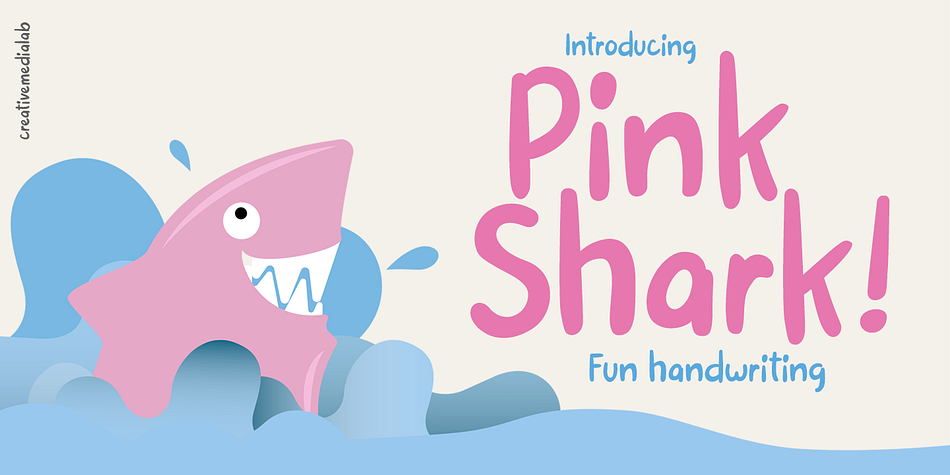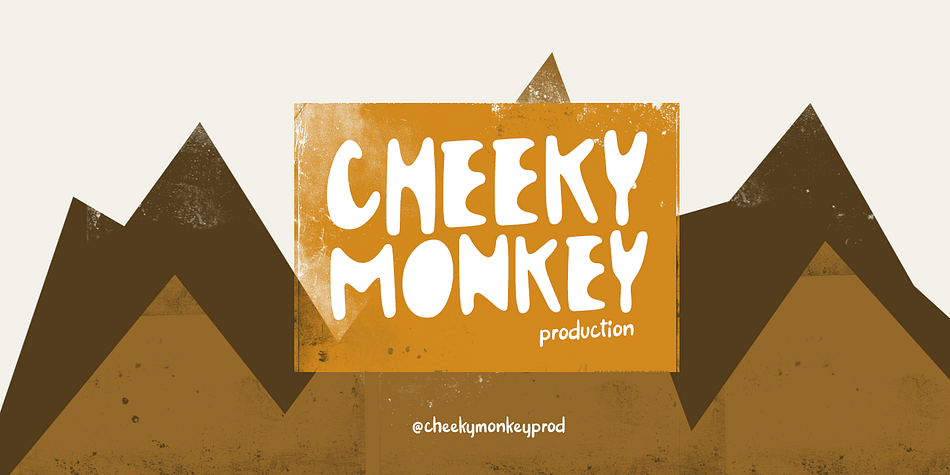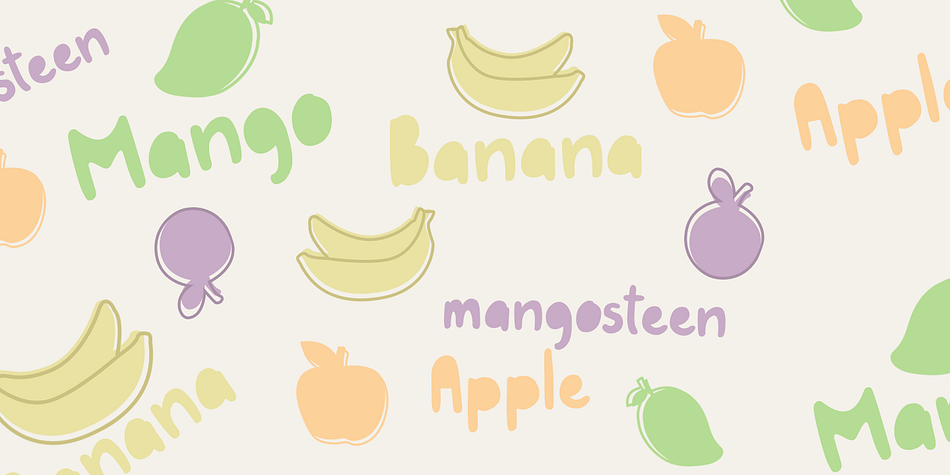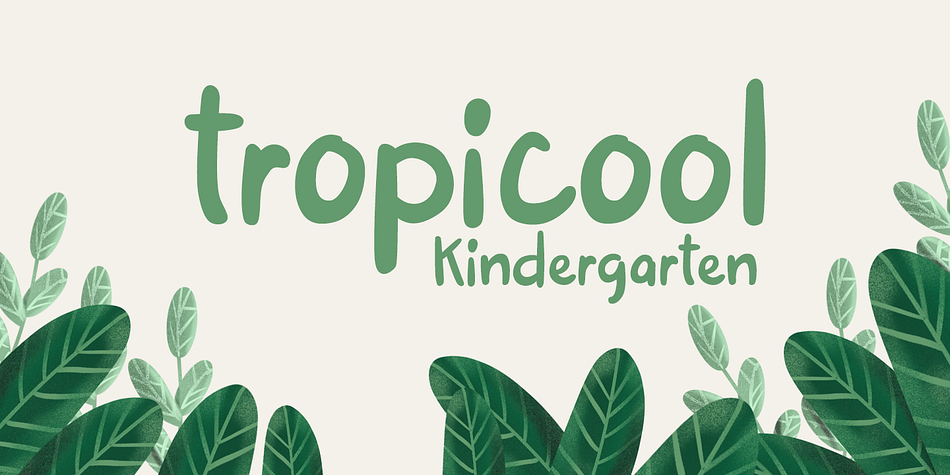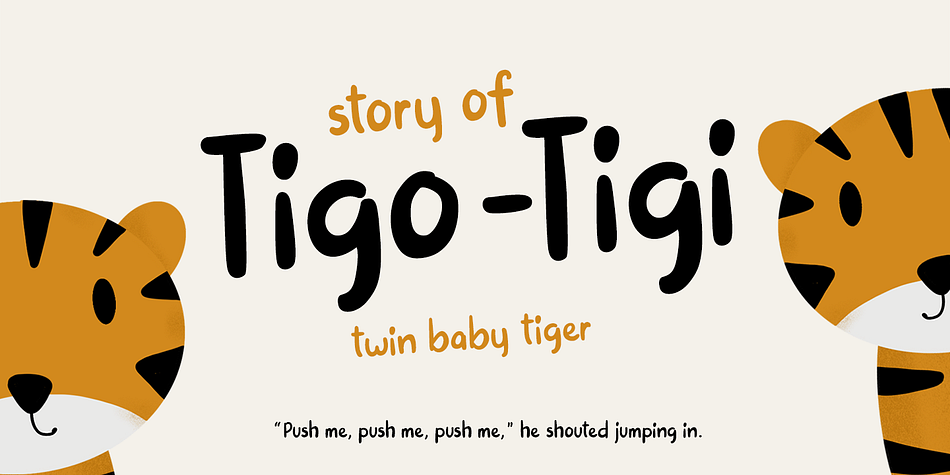
Pink Shark is a brush display, hand display and hand drawn font family. This typeface has two styles and was published by Creative Media Lab.
Introducing Pink Shark!
Fun, bold and simple modern brush Lettering style.
Pink Shark consists of regular and wrap style and they’re perfect duo to create a unique and fun and modern design.